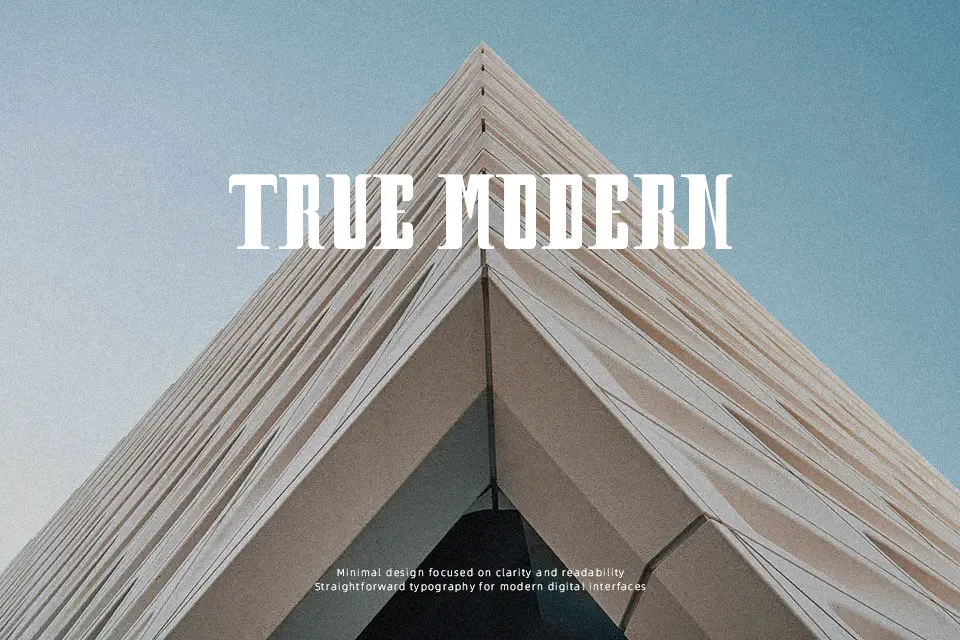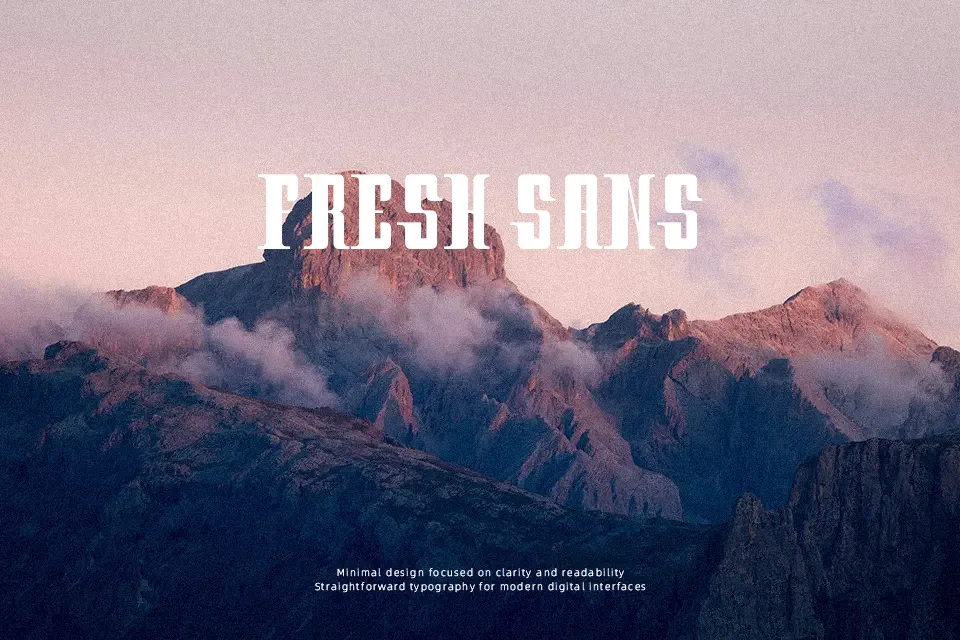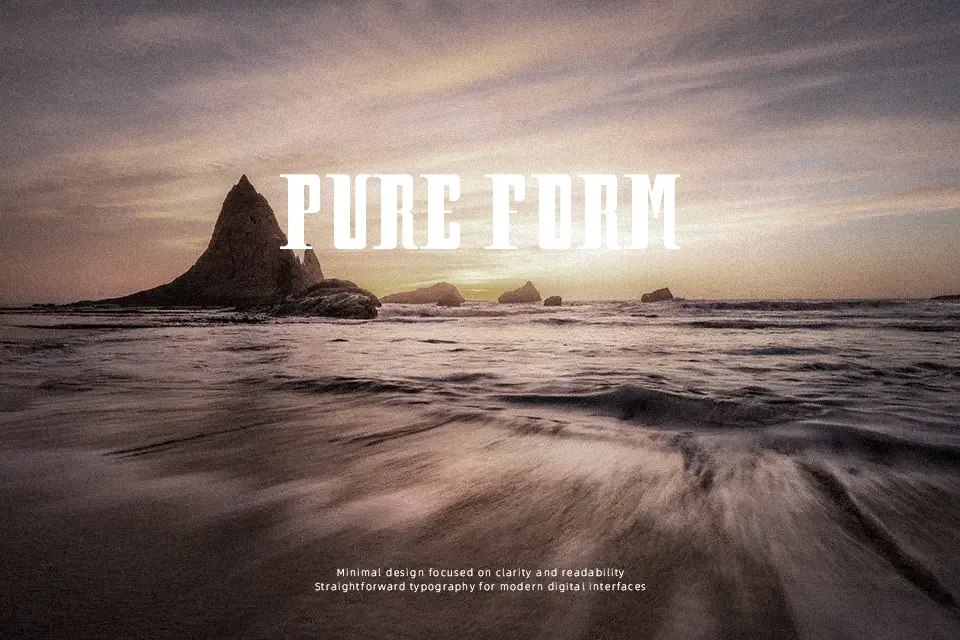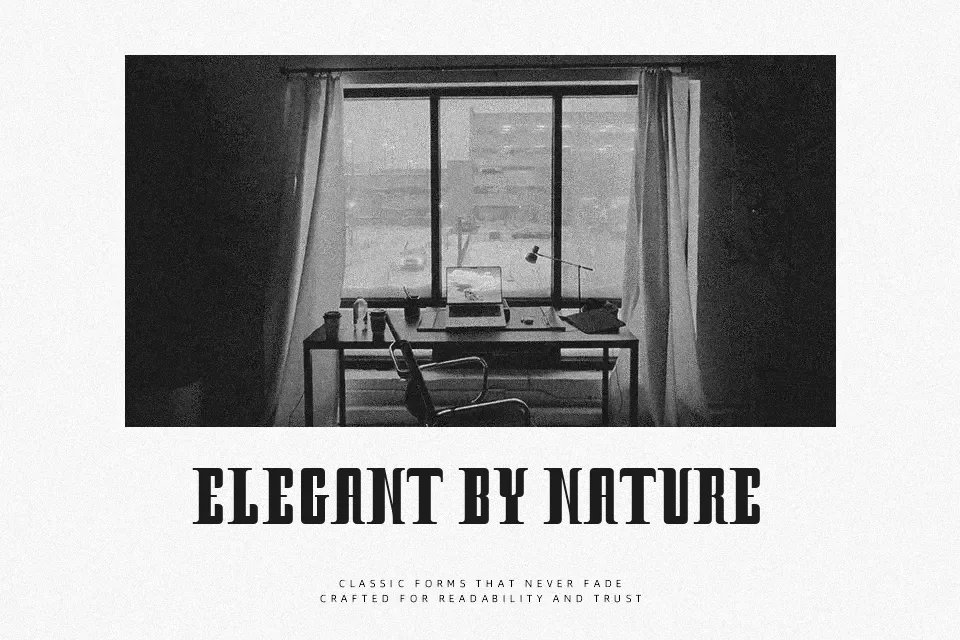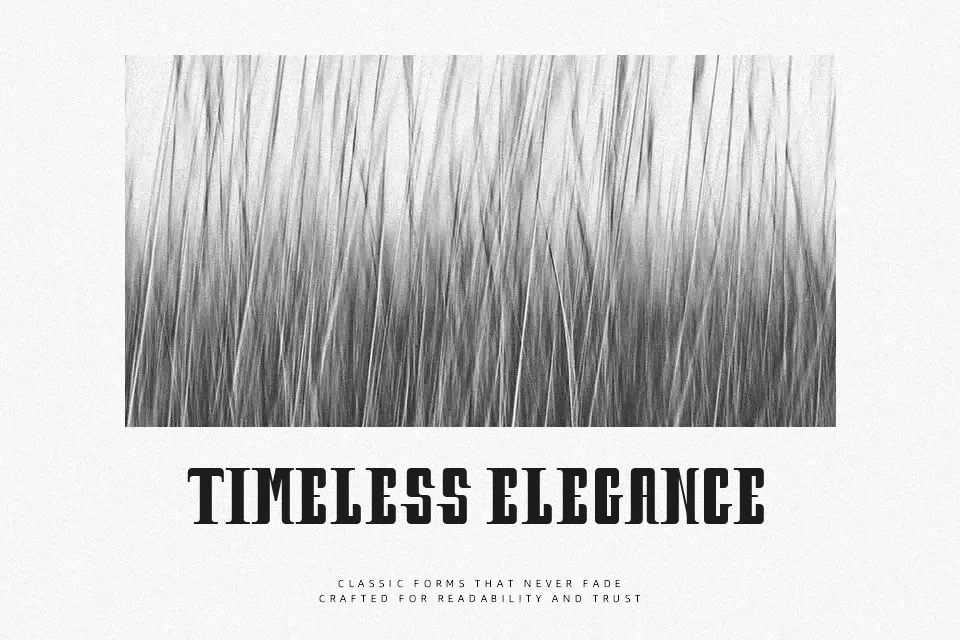
Prohibition Font
Designed by Niels Beyer
Prohibition Font commands attention through its uniquely compressed structure and sharp, decisive serif details. The tight character spacing combined with tall, elongated letterforms creates a rhythmic and powerful visual presence that bridges classic aesthetics with a surprisingly futuristic edge. The bold strokes ensure strong visibility, making the typography perform exceptionally well in large display text, striking headlines, and bold packaging designs. The condensed proportions help maintain clarity in tightly packed headline compositions. However, the heavy visual weight and compressed nature reduce continuous reading comfort, making these letterforms less suitable for long paragraphs or dense body text. Its distinctive character truly shines when utilized for high-impact, short-burst typographic statements.
vintage product packaging
retro poster headlines
bold festival branding
music album covers
Perfect for branding, headline, and music, with a bold and condensed style.